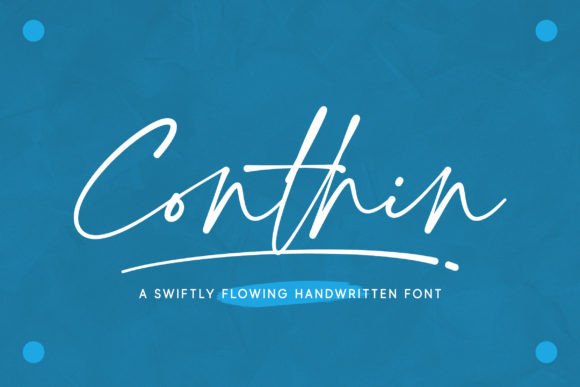
Get ready to experience the captivating beauty of Conthin, a font family that combines the ease of a handwritten script with the sophistication of timeless elegance. Discover the subtle artistry of thin, graceful strokes that dance across your designs, creating a sense of fluidity and refined style. Conthin is not just a font; it's a visual masterpiece that transforms your ideas into visually stunning masterpieces.
Step into the world of Conthin and discover the boundless possibilities it offers. Weave captivating headlines that dance off the screen, craft logos that exude a unique identity, create labels that demand attention, and design branding materials that leave a lasting impression. With Conthin, signatures become works of art, quotes come alive with personality, posters burst with energy, and every project you embark on takes on a new level of sophistication.
Conthin is the ultimate font for those who seek to leave an indelible mark on the world. Its versatility knows no bounds, making it the perfect choice for a myriad of projects. Its elegant strokes add a touch of charm to wedding invitations, its flowing curves bring life to greeting cards, and its versatile style enhances social media posts with a touch of creative flair.
Beyond its aesthetic brilliance, Conthin is meticulously designed to provide an exceptional user experience. Its smooth flow ensures effortless readability, while its carefully crafted characters maintain their integrity across various sizes. Whether you're creating digital masterpieces or crafting tangible works of art, Conthin adapts seamlessly, delivering stunning results every time.